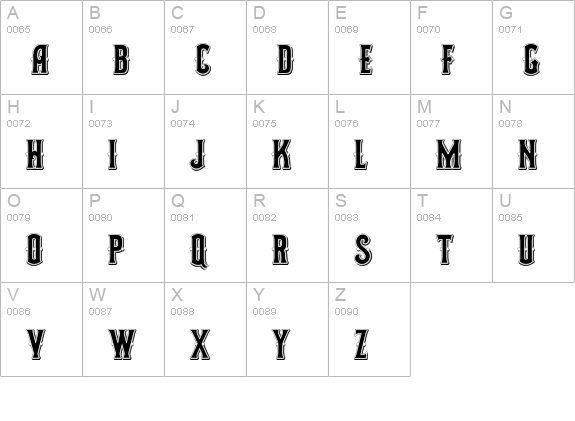
Mohair Font Details
Mohair font is a versatile and elegant typeface that exudes sophistication and creativity. Its unique and playful design makes it perfect for a wide range of projects, from branding to editorial design. The soft and textured appearance of Mohair font adds a touch of warmth and charm to any design. What's even better is that Mohair font is available for free download at FontsMarket.com. You can easily access this beautiful font and use it in your projects without any cost. Don't miss out on the opportunity to add Mohair font to your font collection and elevate your designs with its distinctive style.